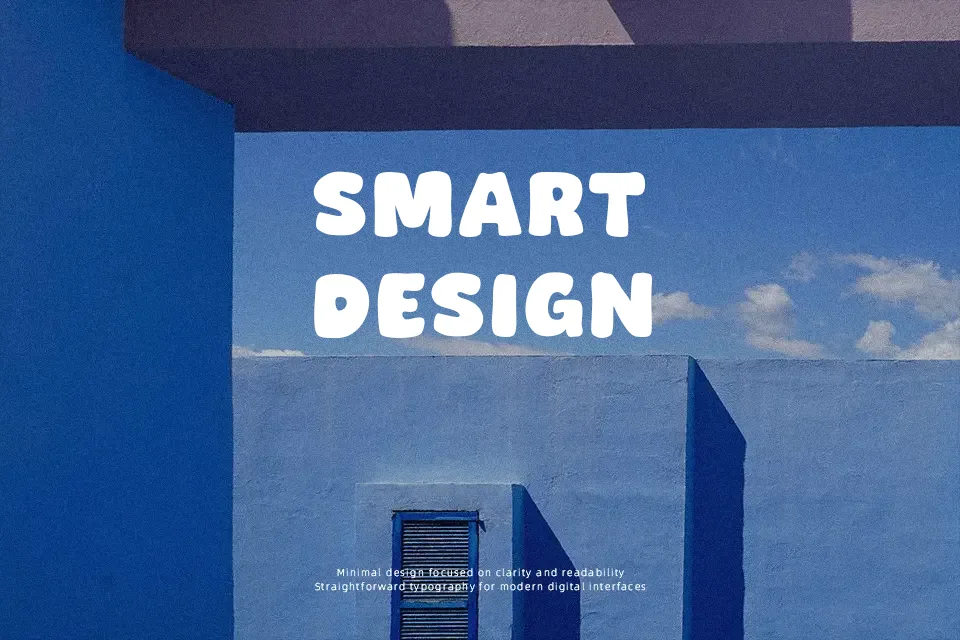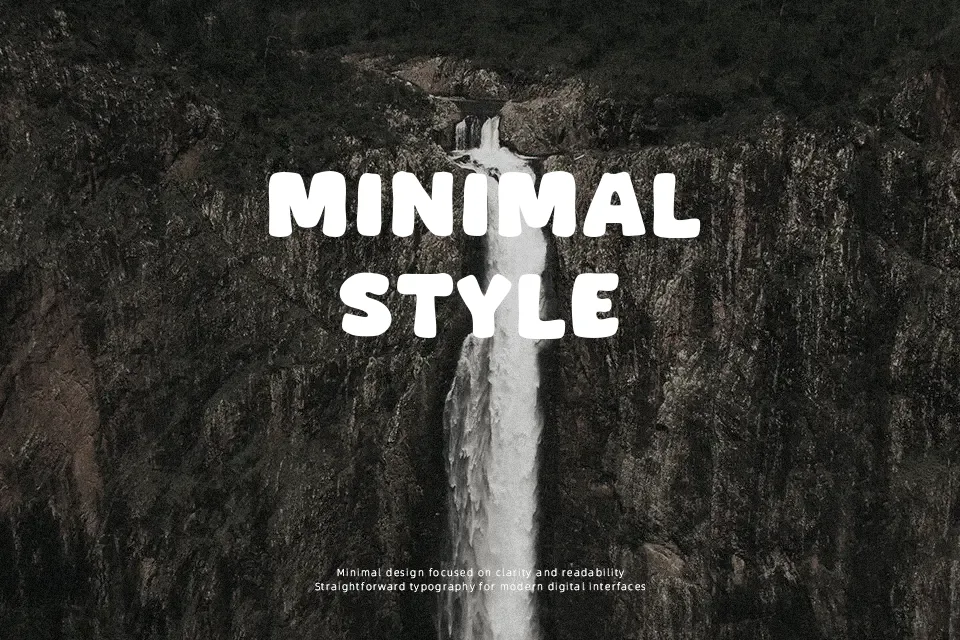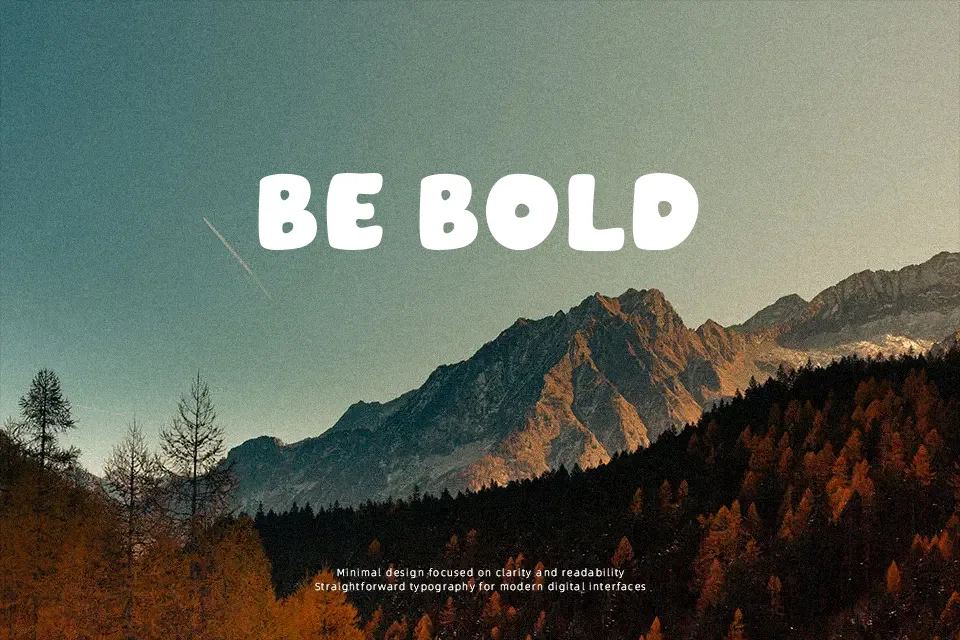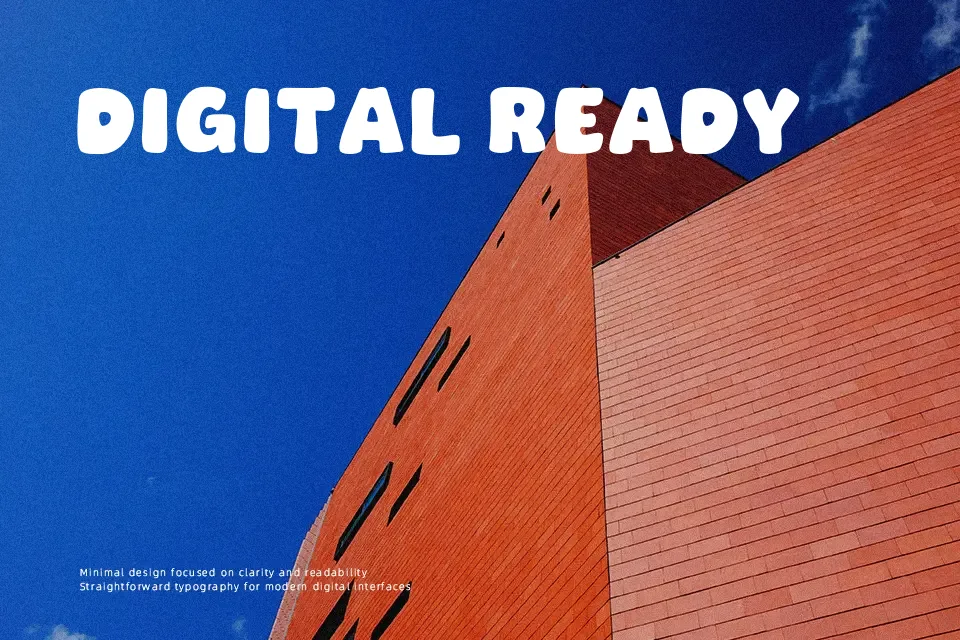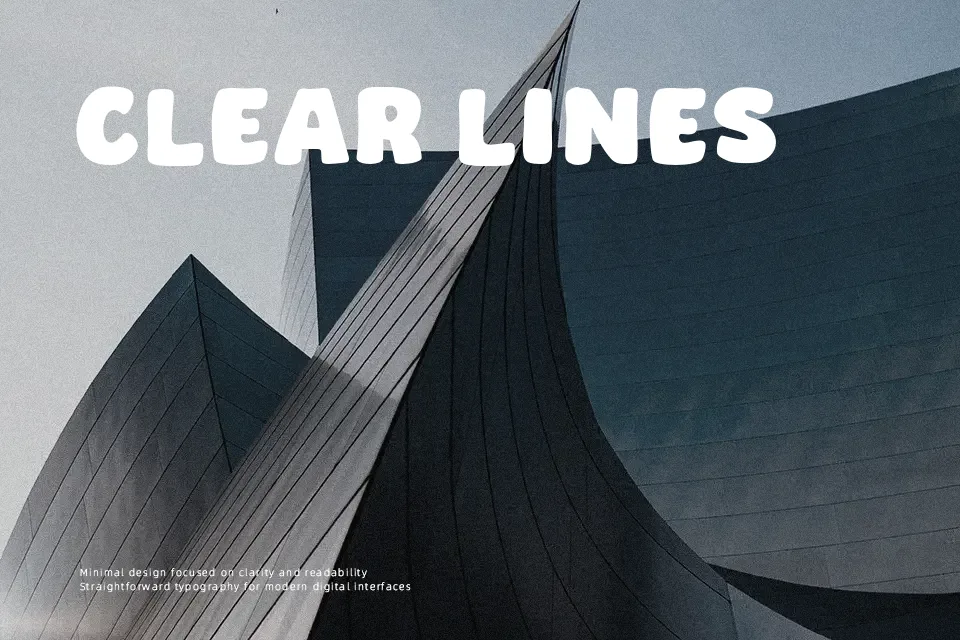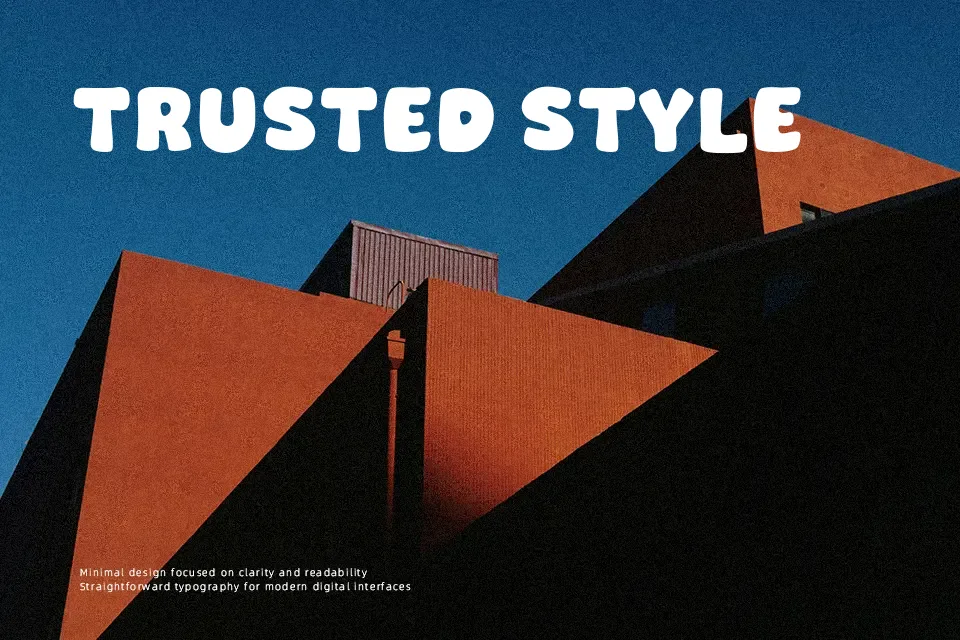
Small Cake Font
Designed by MJType
Featuring soft outer contours and exaggerated curves, Small Cake Font presents an animated display style built around thick, rounded strokes. The letterforms display generous proportions with minimal stroke contrast, while consistent baseline alignment keeps short titles orderly and approachable. Moderate character spacing prevents adjacent glyphs from colliding in large display settings, allowing headers to remain distinctly legible across greeting cards, animated video titles, and bakery signage. However, the heavy weight and reduced interior counter spaces compromise legibility when scaled down to small sizes. The design remains most effective in prominent headline applications rather than extended body text.
Best For: children’s book covers, bakery branding, birthday party invitations, toy packaging
Not Ideal For: long paragraph text, mobile app body copy, legal documents, dense editorial layouts
Perfect for branding, headline, and kids, with a bold and cartoon style.